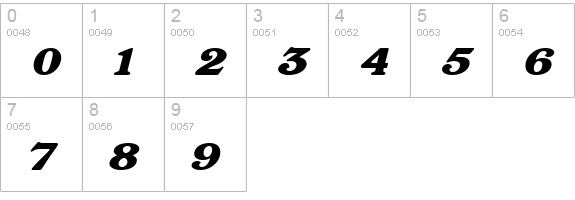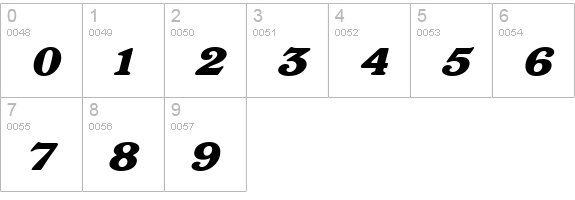
DictionaryExtended Italic Font Details
DictionaryExtended Italic is a distinctive, italic variant in the DictionaryExtended typeface family \xE2\x80\x94 well suited to design and typography projects.
Introducing DictionaryExtended Italic font, a sleek and modern typeface perfect for adding a touch of sophistication to your designs. With its elegant italic style, DictionaryExtended is ideal for creating eye-catching headlines, invitations, and branding materials. This versatile font features extended characters and sharp details that make it stand out from the crowd. The best part? DictionaryExtended Italic is available for free download at FontsMarket.com. Whether you're a designer looking to elevate your projects or a business owner seeking a unique font for your branding, DictionaryExtended Italic has got you covered. Don't miss out on this stylish and versatile font - download it now and take your designs to the next level!